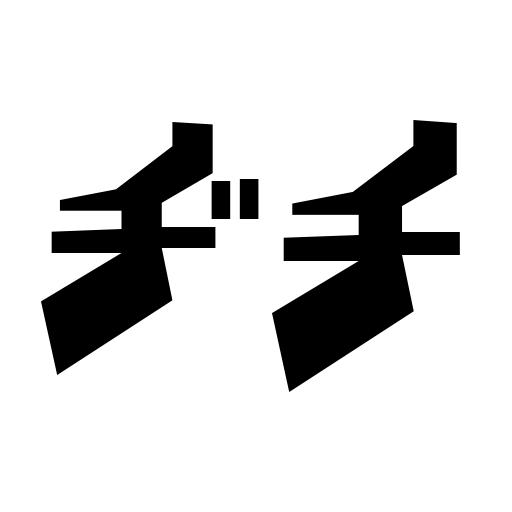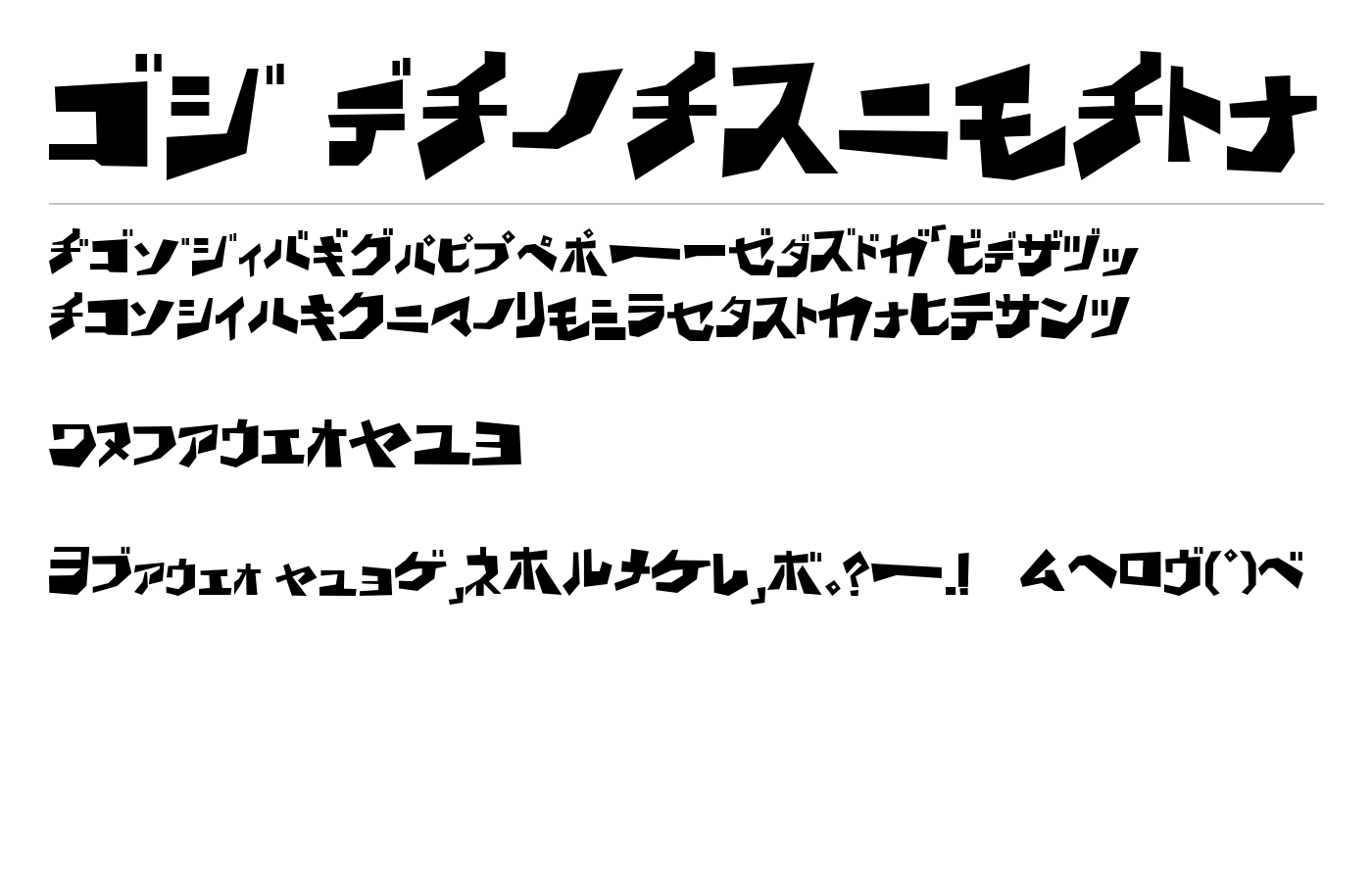
BD Wakarimasu is a bold, angular sans serif font with a strong geometric feel highlighted by sharp, irregular edges and dynamic, varied stroke widths. Its distinctive, playful personality makes it ideal for eye-catching headlines, branding, or creative projects that want to convey energy and modernity with a touch of whimsy. This font stands out in designs needing bold impact and a unique Japanese style flair.
BD Wakarimasu Font
About BD Wakarimasu Font